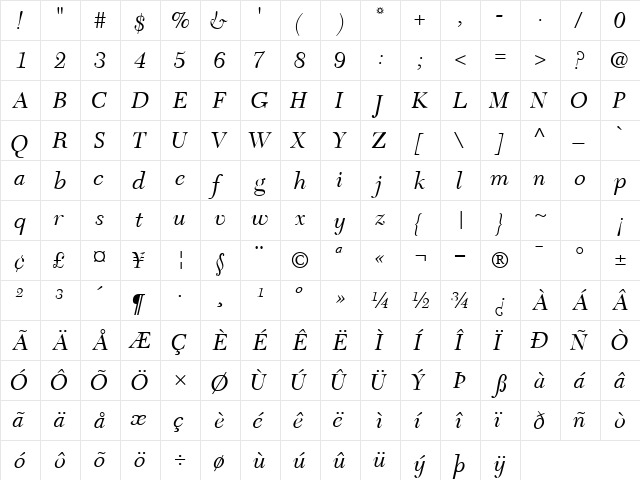
TycoonSSK Italic
Design Context for TycoonSSK Typeface
TycoonSSK takes a measured approach to typography — its balanced proportions and neutral character make it a reliable workhorse for both digital and print work. The slanted form adds forward momentum and visual energy.
Pro Tip: Try TycoonSSK for annotation and caption copy alongside an upright companion — the contrast in angle creates a dynamic but ordered typographic system.